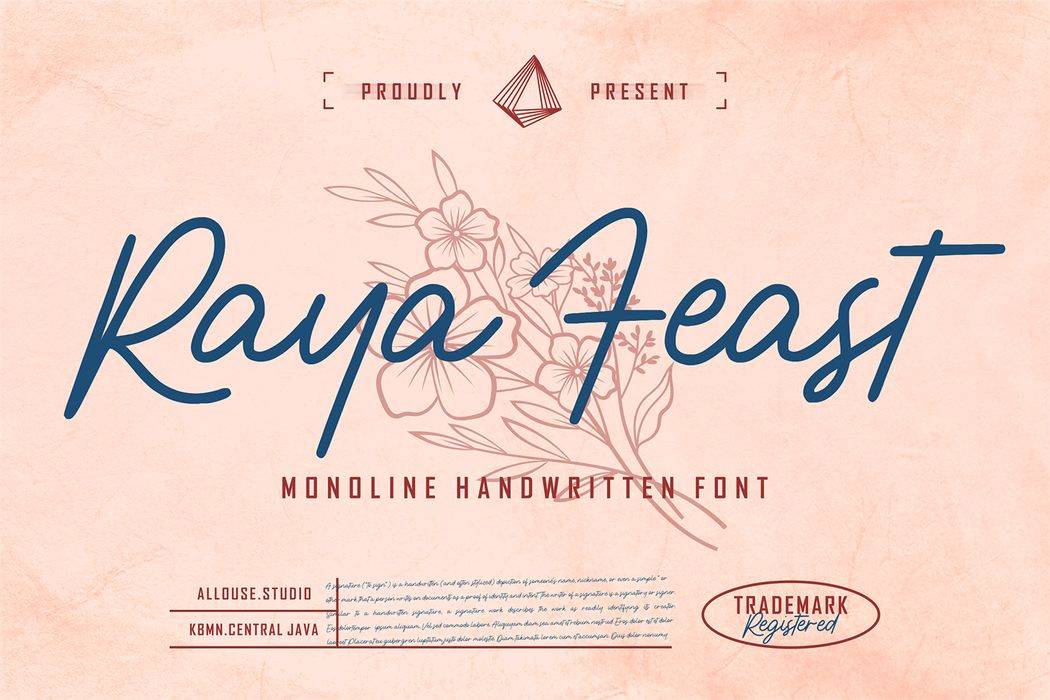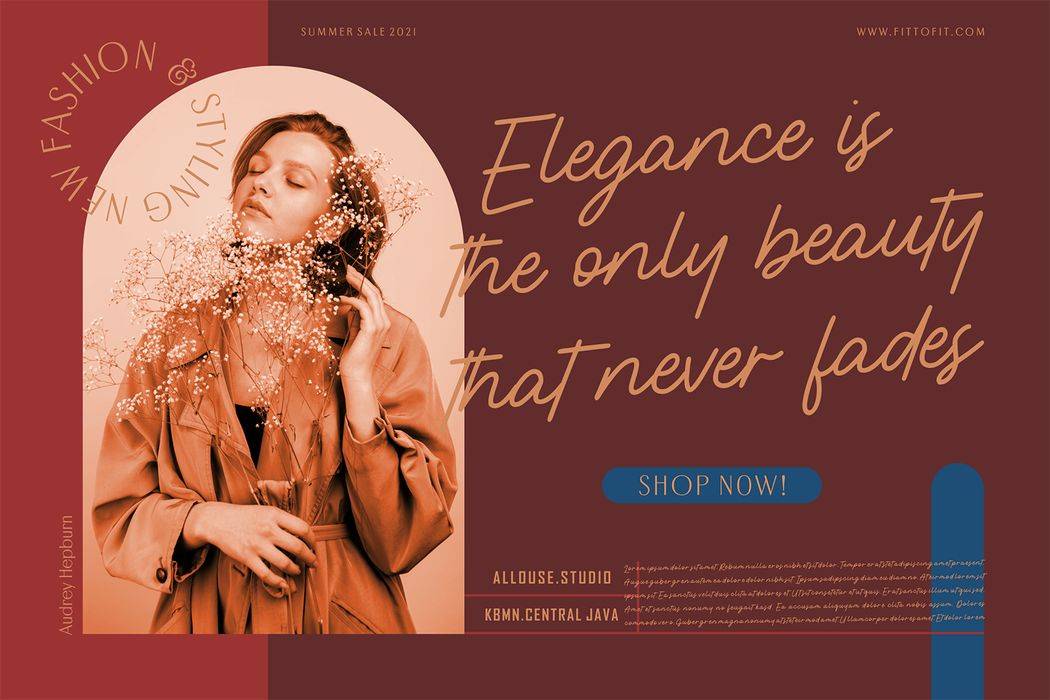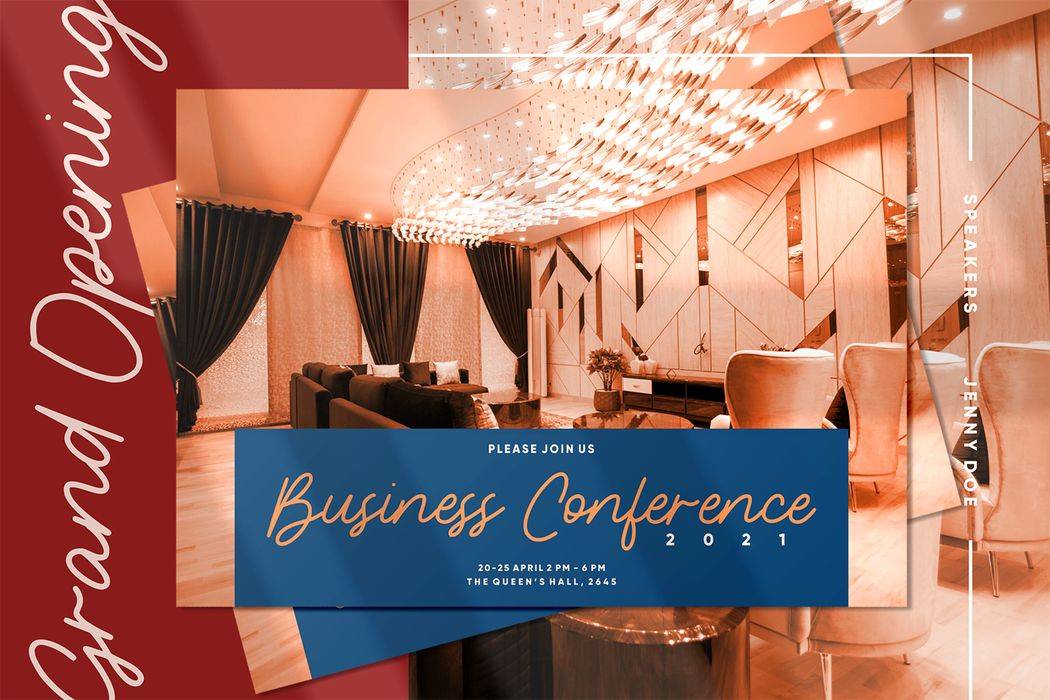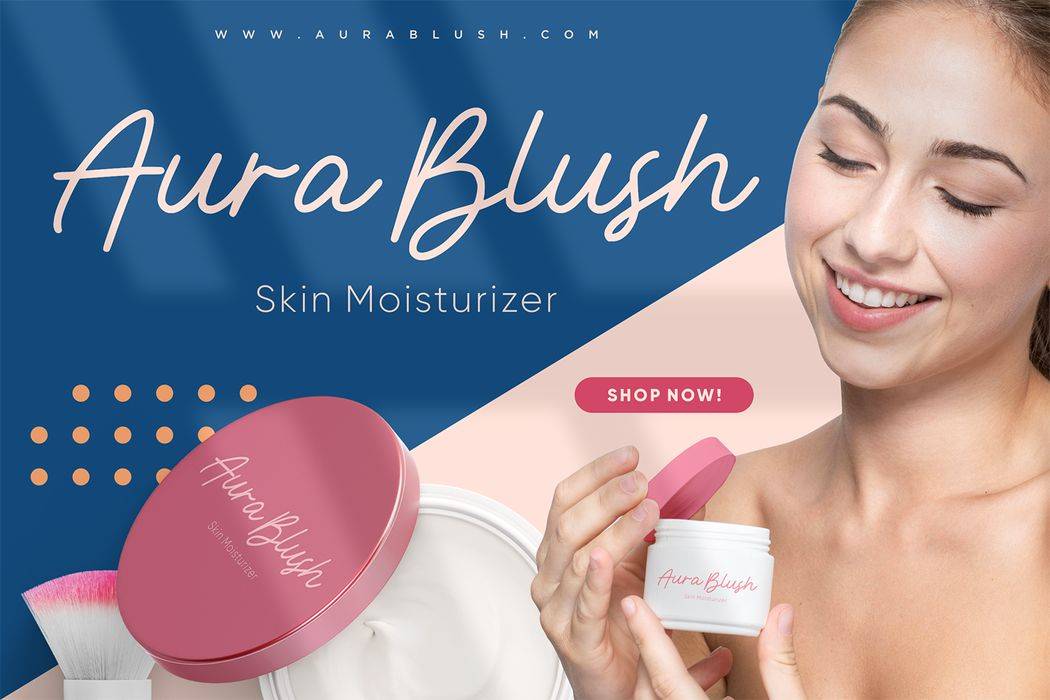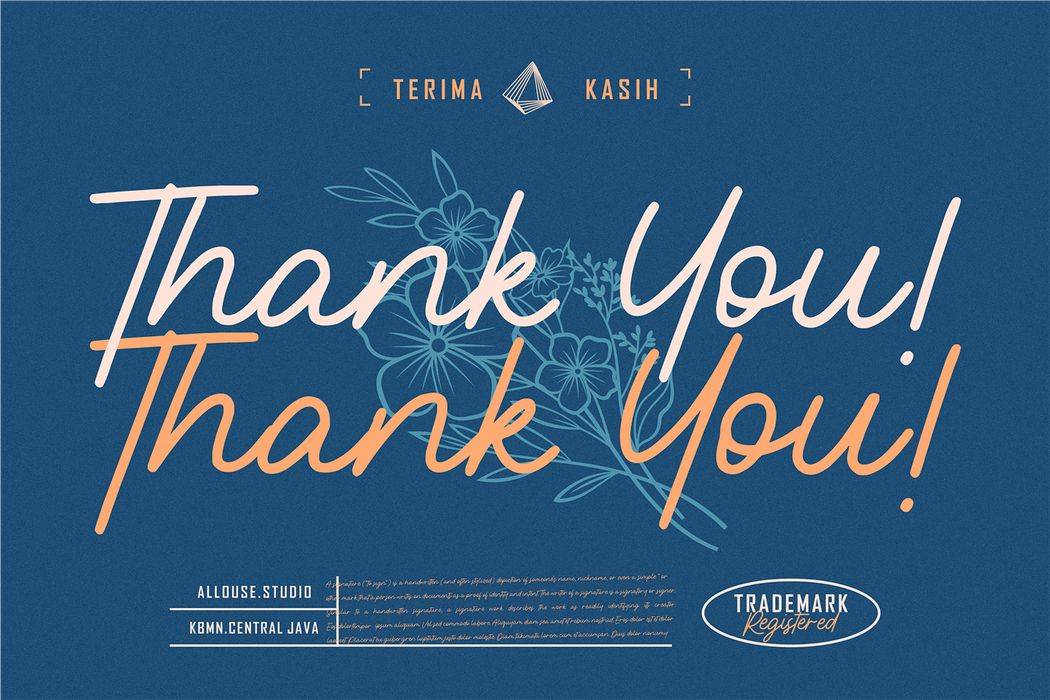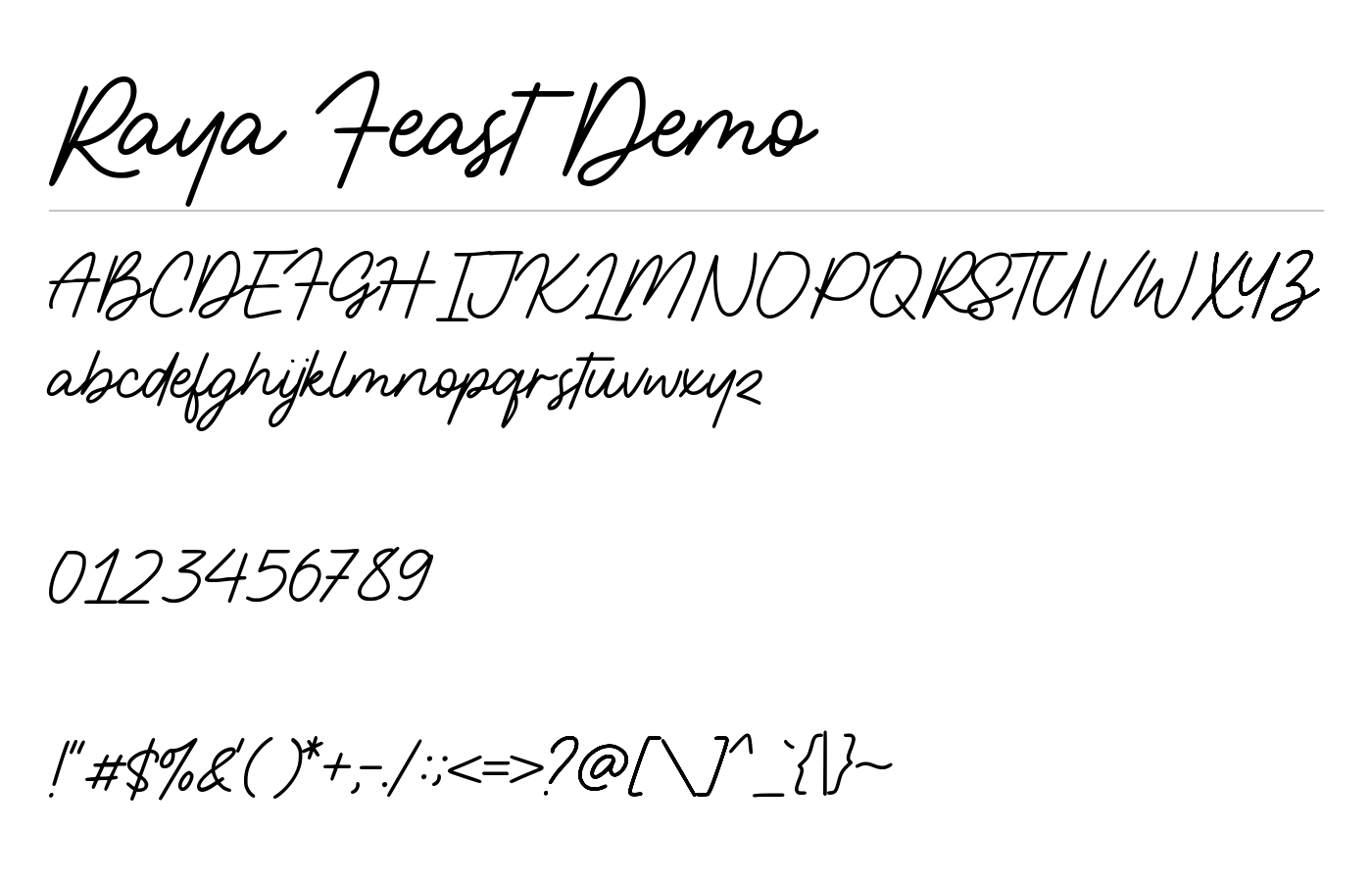
Raya Feast is a delicate and elegant script font with a smooth, handwritten style that conveys a personal and graceful touch. Its slender, slightly slanted letterforms and consistent stroke weight make it perfect for adding a sophisticated yet approachable feel to invitations, branding, and stylish editorial projects. This font works best in designs where a refined, intimate atmosphere is desired.
Raya Feast Font
About Raya Feast Font